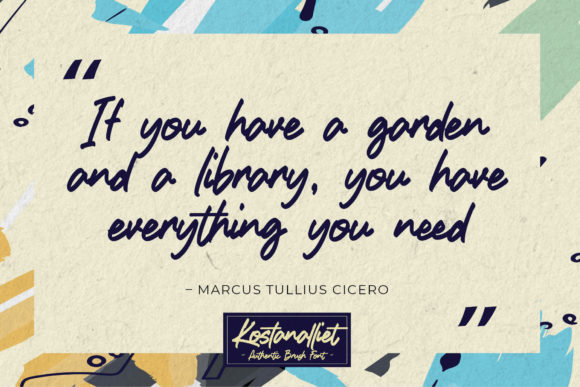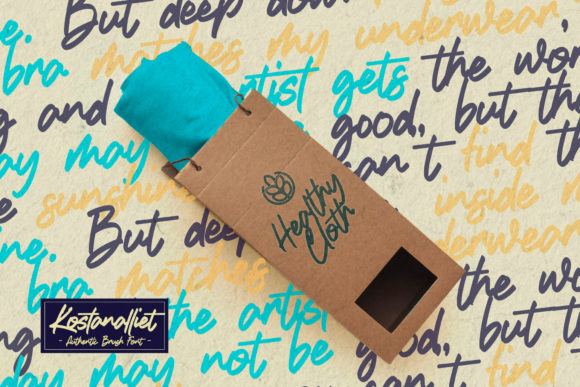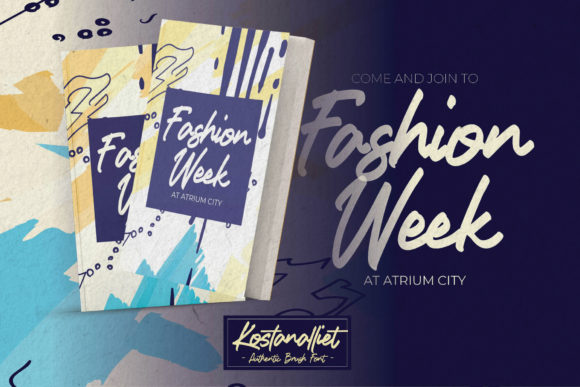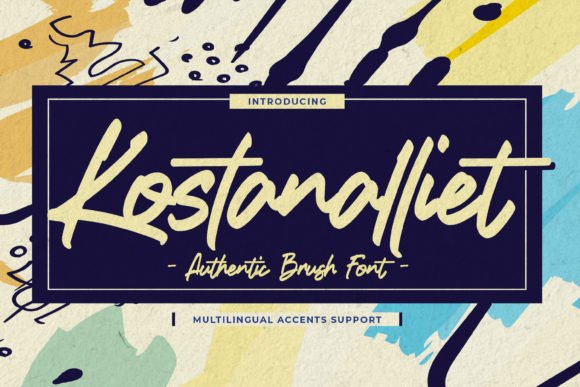
Introduction to Kostanalliet Font
Kostanalliet is an authentic brush handwritten font featuring classy characters and a lovely signature style.
With a clear and dramatic movement, this font is perfect for logos, printed quotes, invitations, cards, product packaging, headers, Logotypes, letterhead, posters, watermark on photography, advertisements, product designs, stationery, wedding designs, labels, product packaging, special events, or anything that needs handwriting taste .